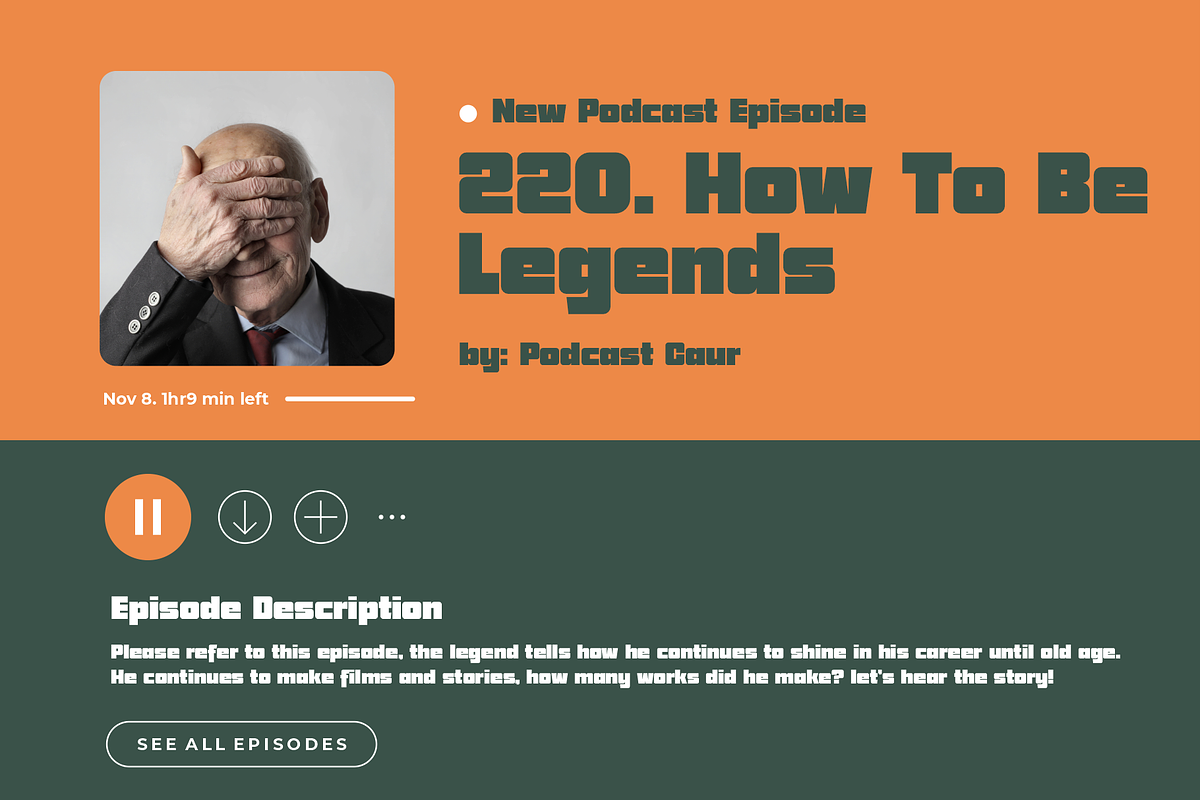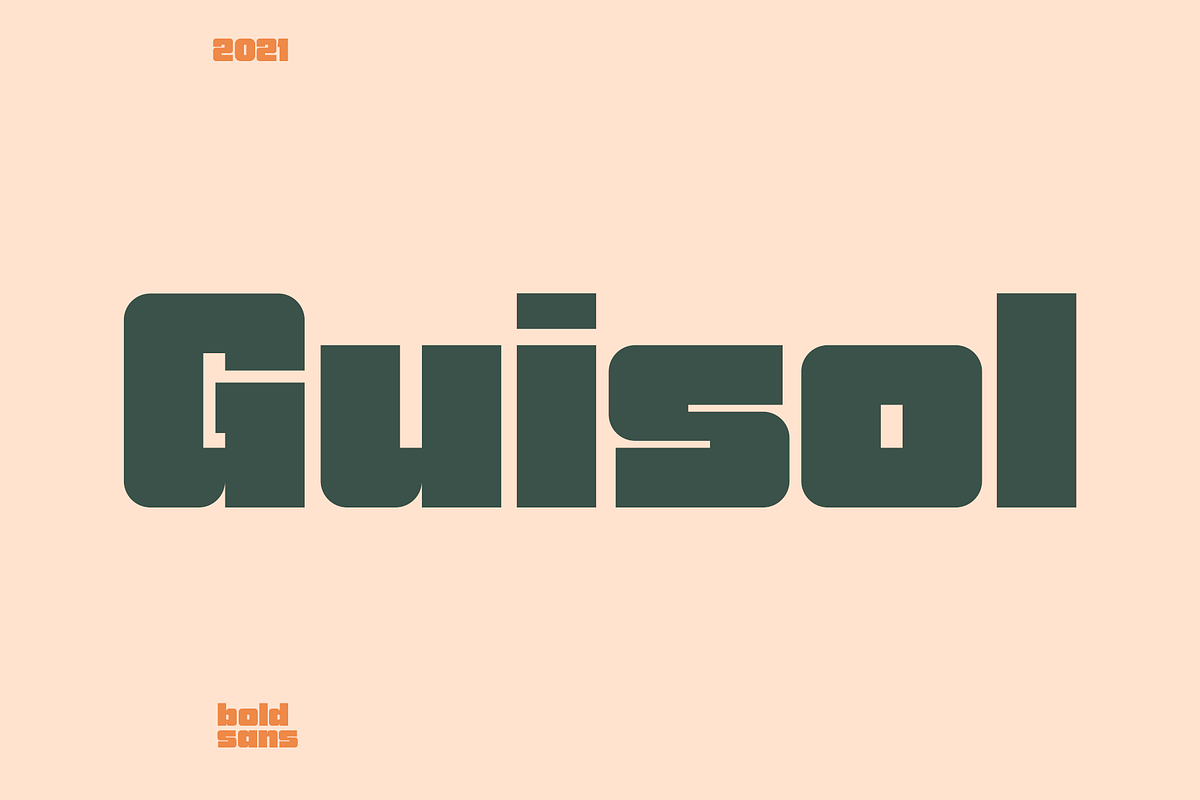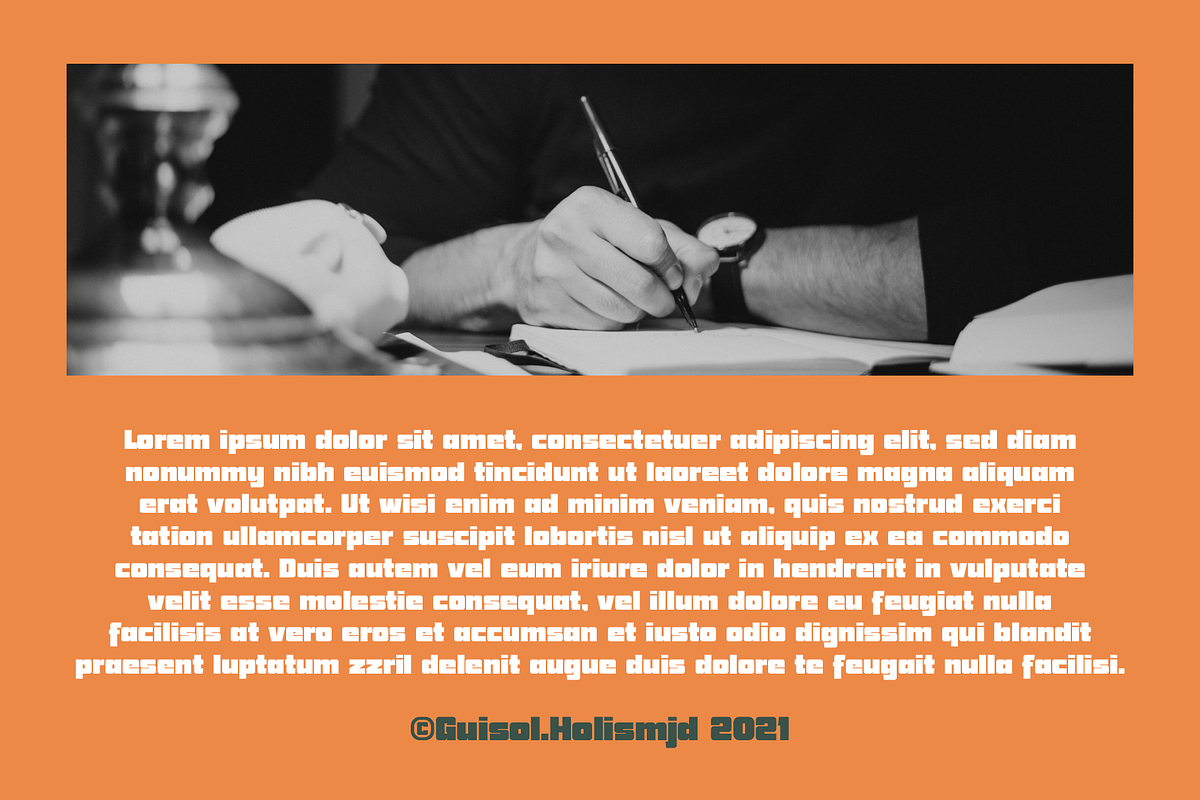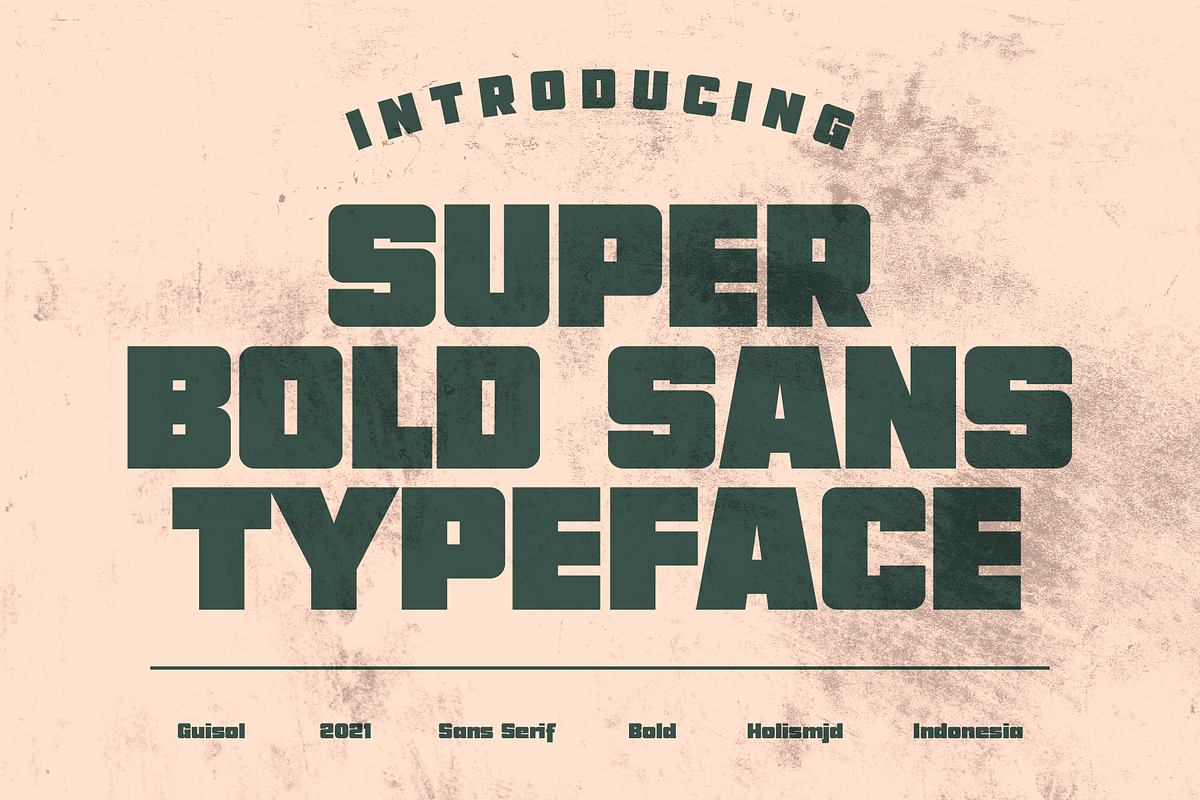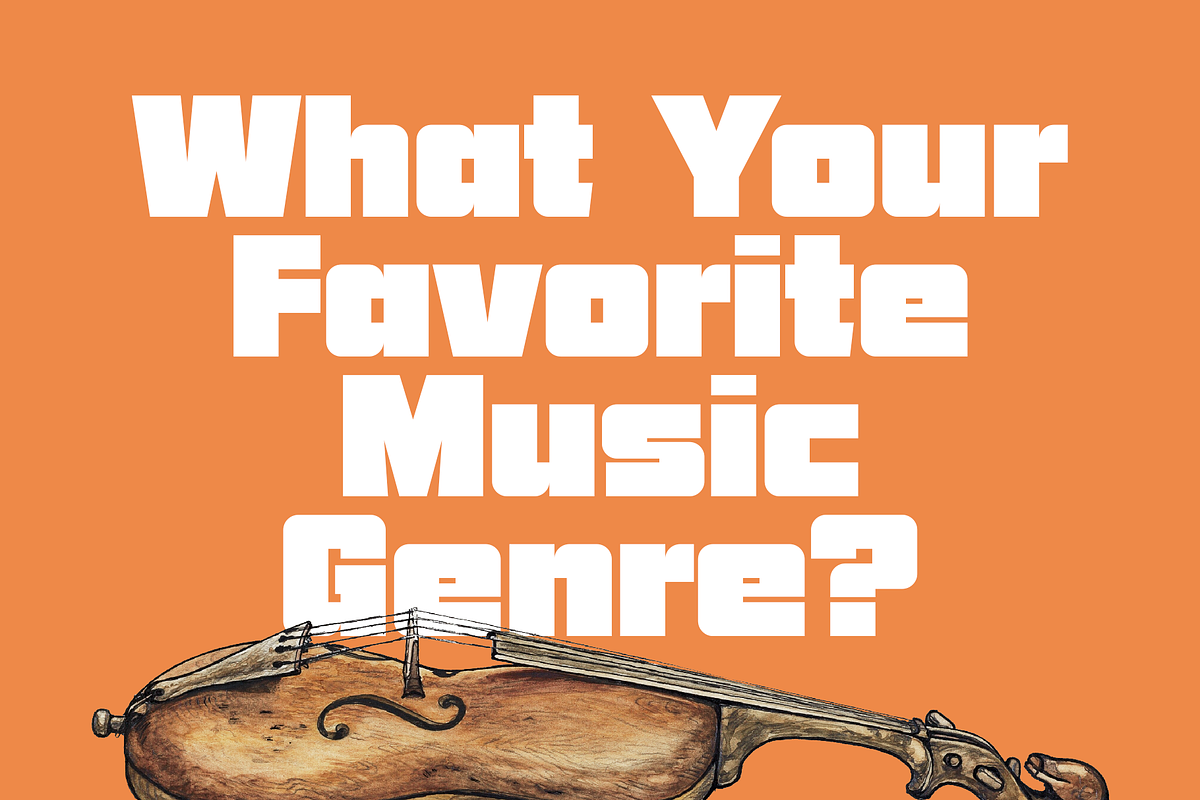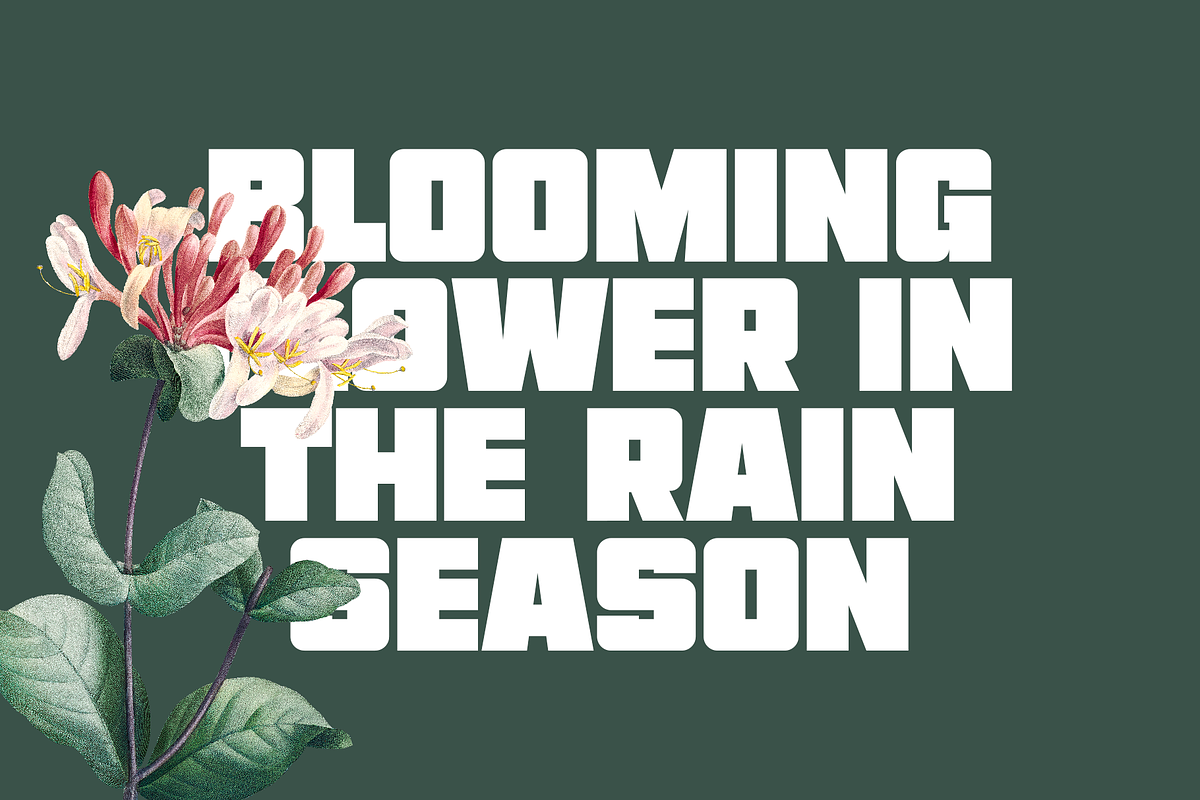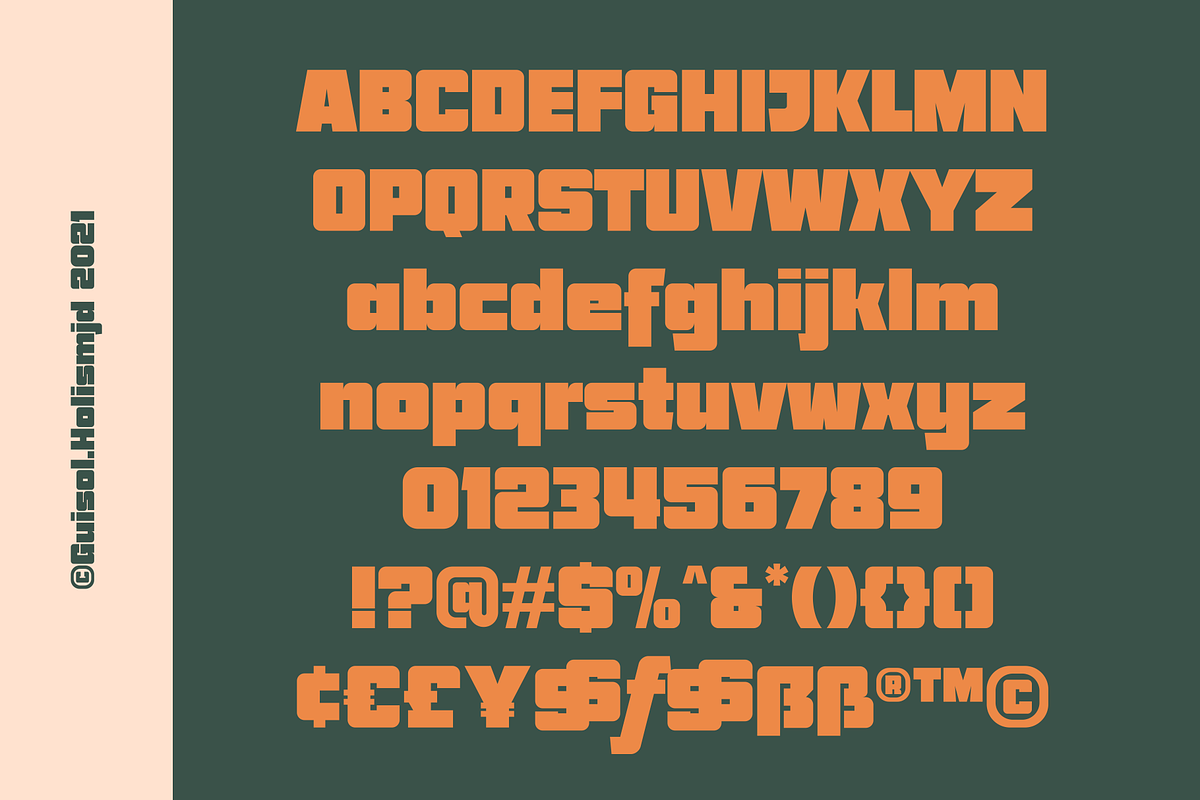
Guisol Bold Sans
Guisol is a simple, bold sans serif font, equipped with uppercase and lowercase as well as several symbols and is also multilingual supports in many languages. This font is suitable for logos, posters, label designs, corporate branding and more.
- Uppercase - Lowercase
- Numeral
- Symbol
- Multilingual Support ÆŒÀÁĂÂÄĄÅÃĀǼĆČÇĈĊĎÐÈÉĔĚÊËĖĒĘĞĜĢĠĤĦÌÍĬÎÏİĮĪĨĴĶĹĽĻĿŁŃŇŅÑŊÒÓŎÔÖŐØǾÕŌŔŘŖ ŚŠŞŜȘŤŢŦÙÚŬÛÜŰŲŮŪŨẀẂŴẄỲÝŶŸŹŽŻ